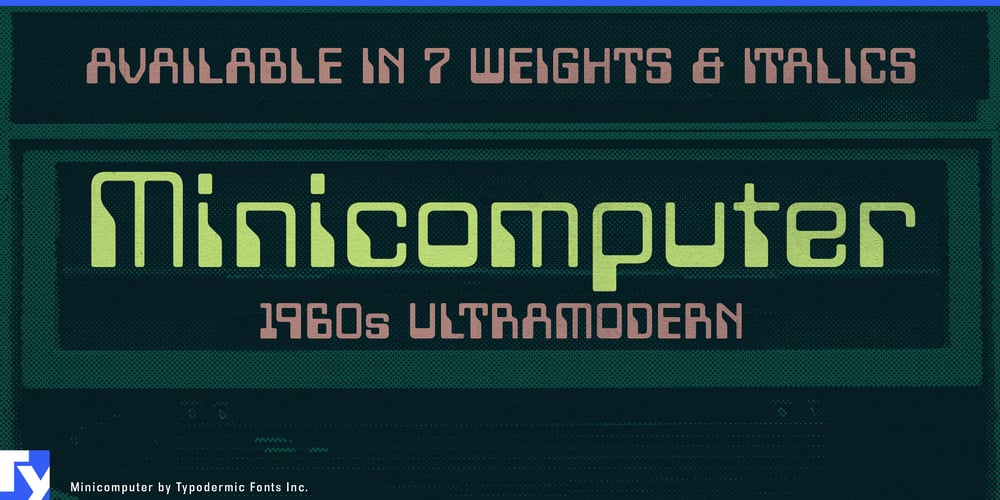
Minicomputer
Minicomputer font
Minicomputer Font Family was designed by Ray Larabie and published by Typodermic. Minicomputer contains 14 styles and family package options. Step aside, computer nerds—Minicomputer is breaking free from the binary bonds of tech nostalgia and strutting its way back to the psychedelic heart of Swinging London! This isn’t just a typeface; it’s a time machine disguised as letters, ready to transport your designs from the sterile world of MICR E-13B bank checks to the vibrant, mod-tastic realm of 1960s fashion.Sure, Minicomputer may have its roots in the magnetic ink characters that once graced the bottom of your gran’s checkbook, but don’t let that fool you. This typeface has traded in its pocket protector for a pair of Chelsea boots and is ready to paint the town in technicolor. With seven groovy weights and italics, Minicomputer is less about balancing your accounts and more about unbalancing the senses in true psychedelic style. Forget the beige boxes of early computing—Minicomputer is here to remind us that before it became the darling of digital dorks, this style was the toast of Carnaby Street. It’s the typographic equivalent of a Twiggy dress: sleek, modern, and utterly fabulous. Those OpenType old-style numerals aren’t just mimicking MICR E-13B; they’re channeling the price tags on vintage boutique windows, beckoning the fashion-forward to indulge in a little typographic retail therapy.But Minicomputer isn’t content with just looking pretty. Oh no, this typeface is as versatile as a reversible miniskirt. Need fractions? It’s got ‘em. Craving numeric ordinals? Coming right up. And those mathematical symbols? They’re not for calculating your tax return—they’re for counting the beats in the latest chart-topper blasting from your transistor radio. From Vietnamese to Greek, from Cyrillic to Latin, Minicomputer speaks the international language of cool. It’s not just crossing borders; it’s erasing them, creating a global village of typographic trendsetters. Whether you’re designing a gig poster for The Who or crafting a multilingual fashion magazine spread, Minicomputer ensures your message is as hip in Helsinki as it is in Haight-Ashbury.So, designers, it’s time to liberate Minicomputer from the clutches of computing history. This isn’t just a nod to the past—it’s a full-on shimmy into a world where technology and fashion collide in a beautiful, bizarre explosion of style. Don’t just use it—wear it, flaunt it, and let it transform your creations from mere layouts into legends of style.